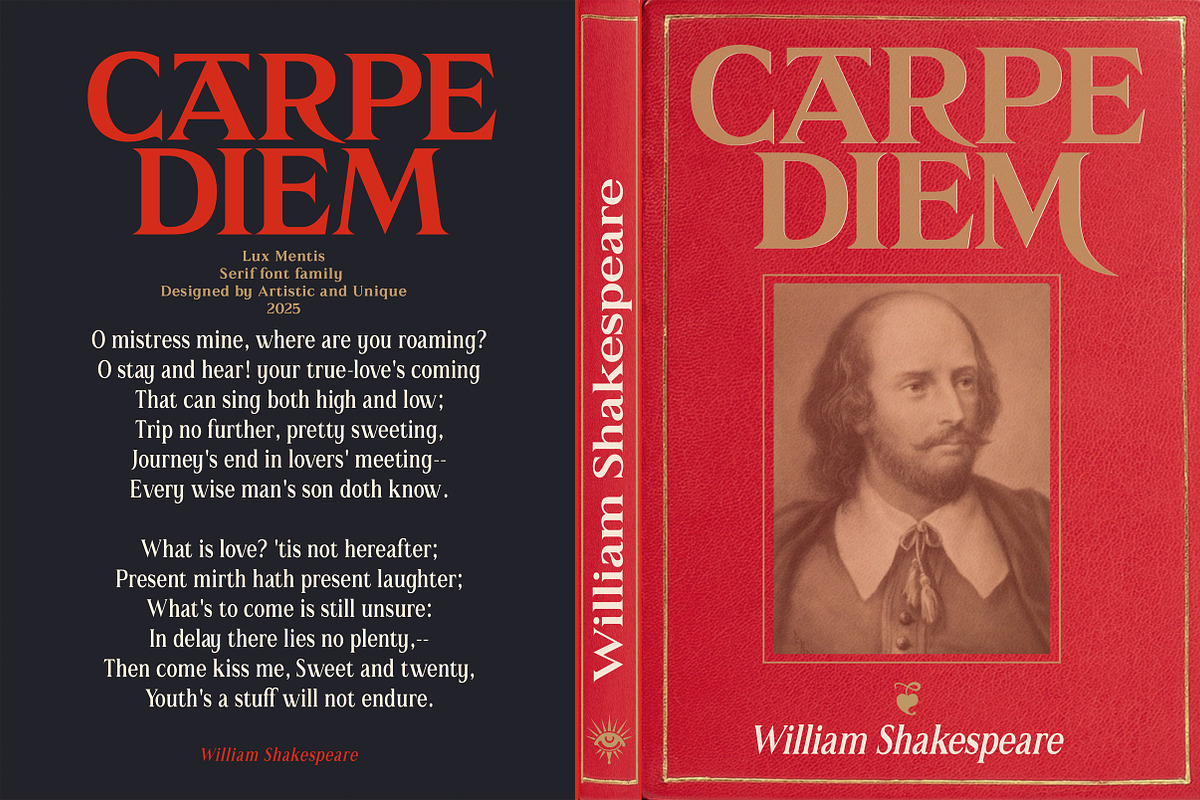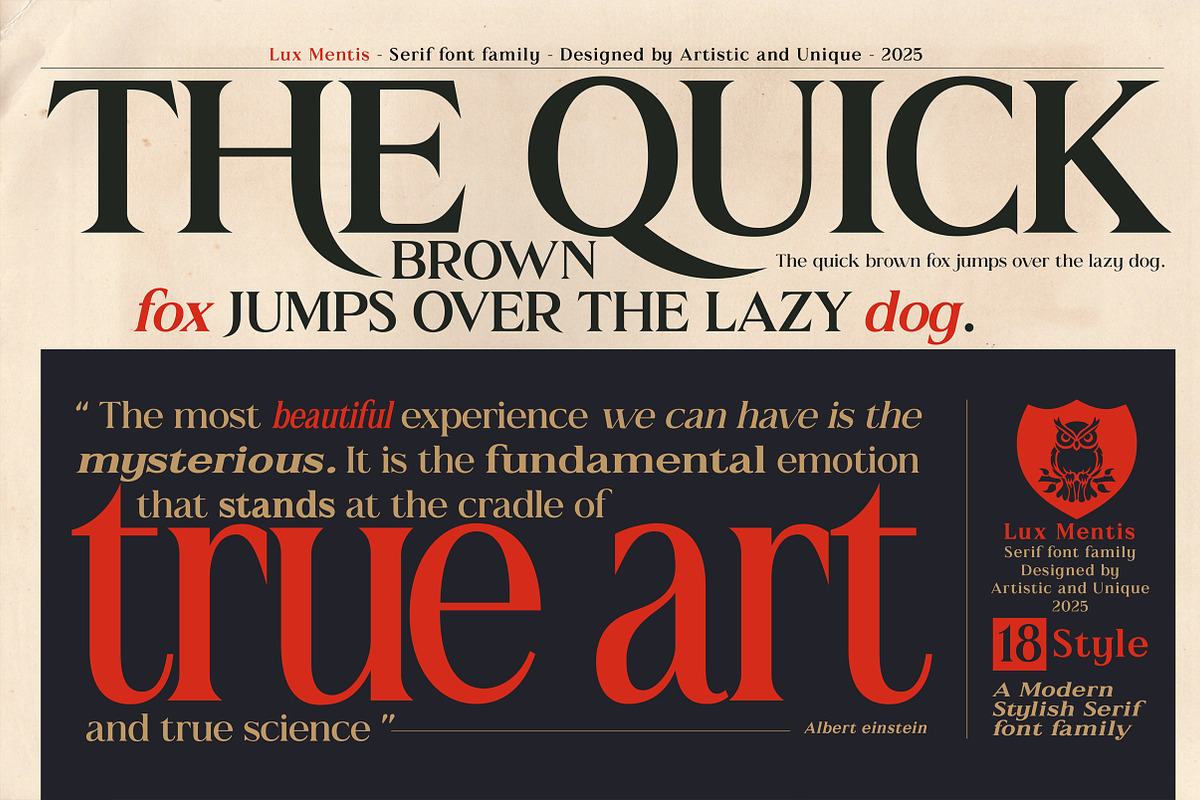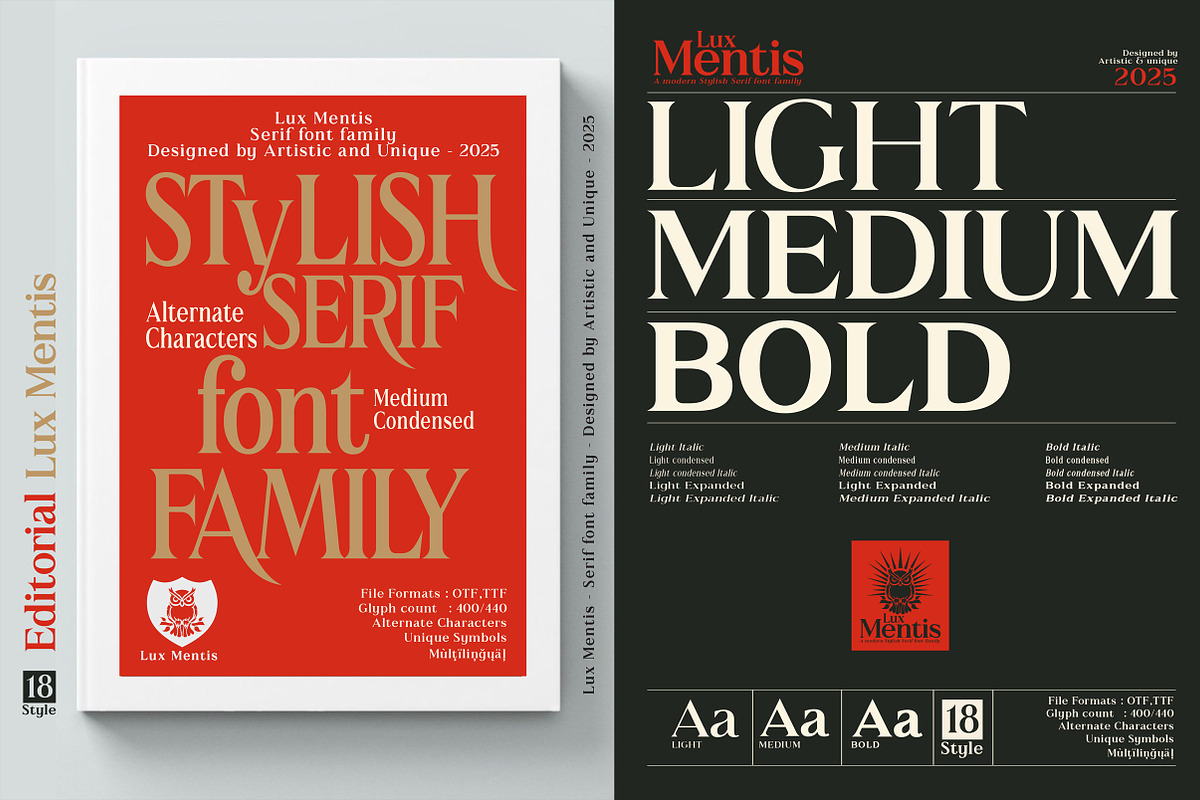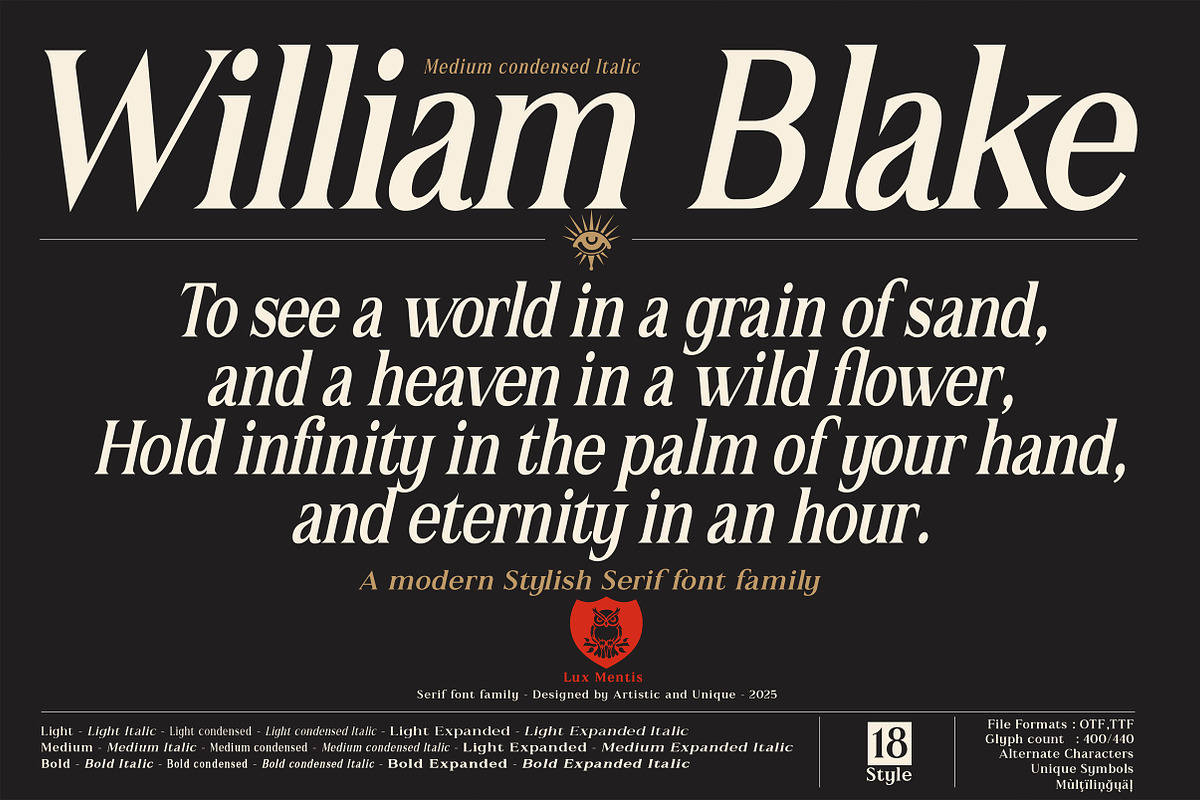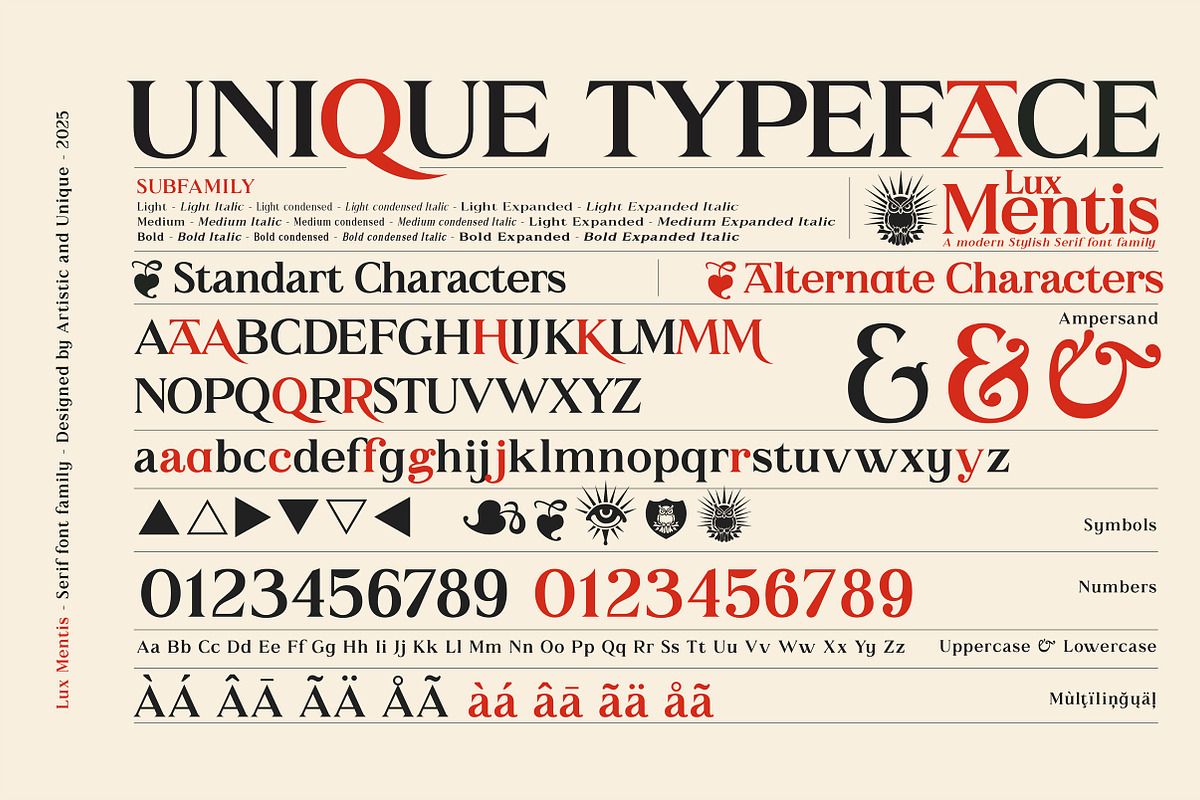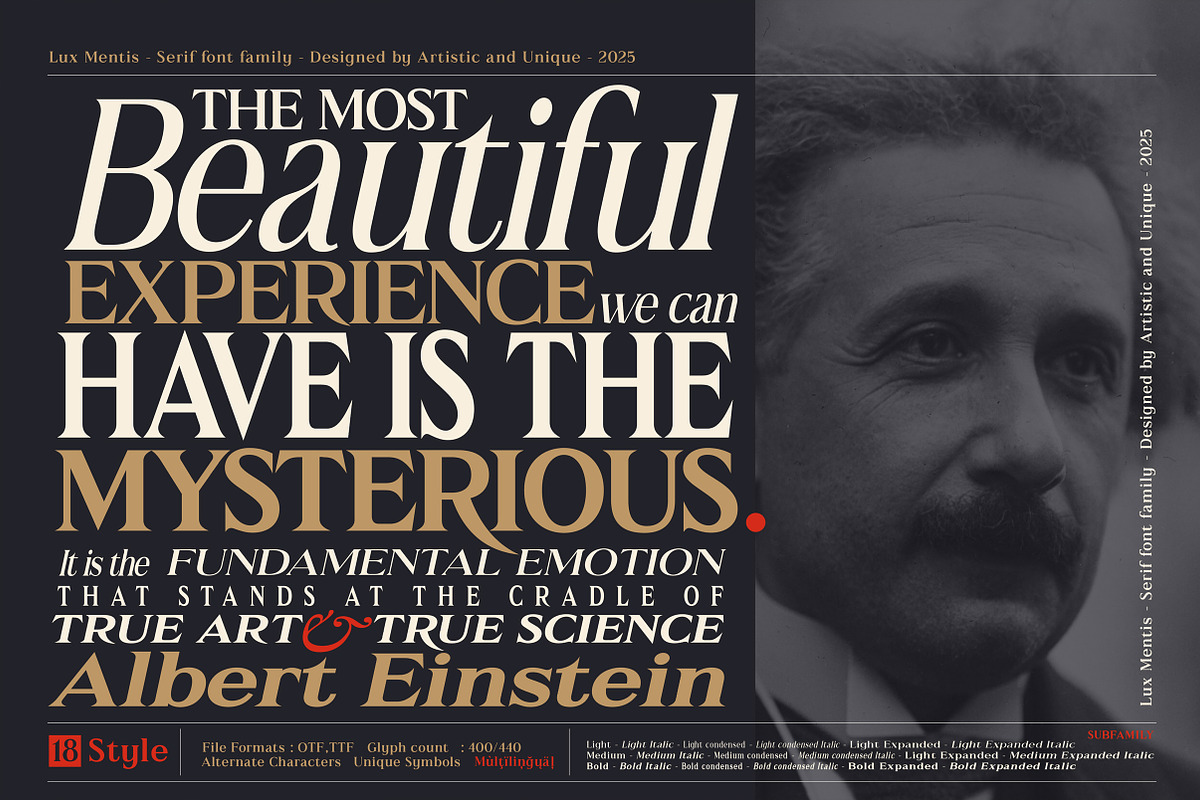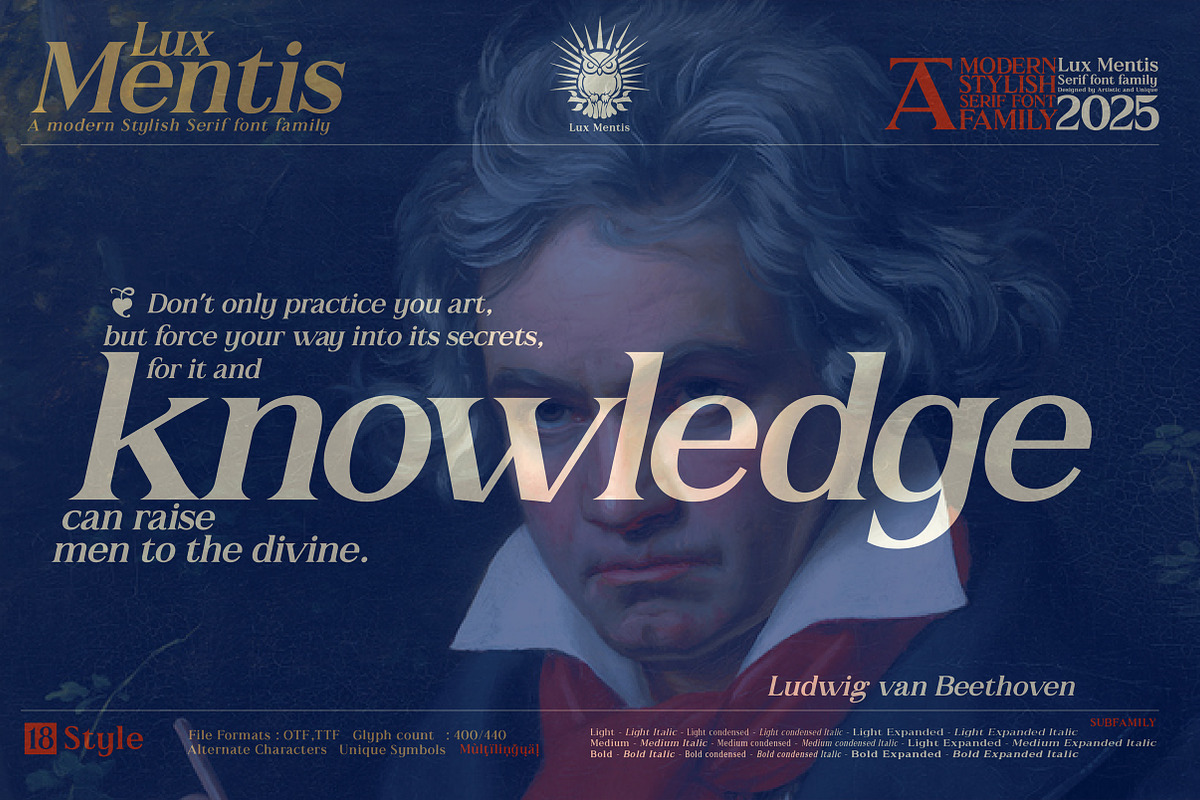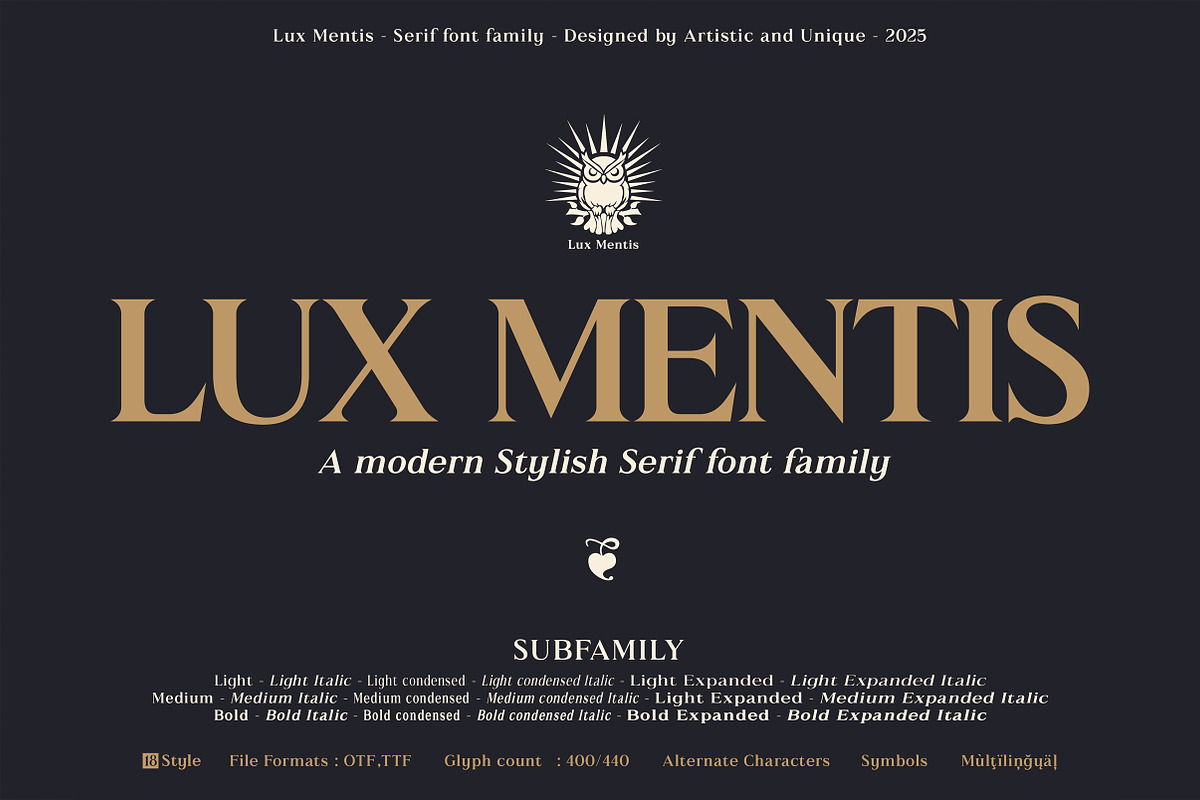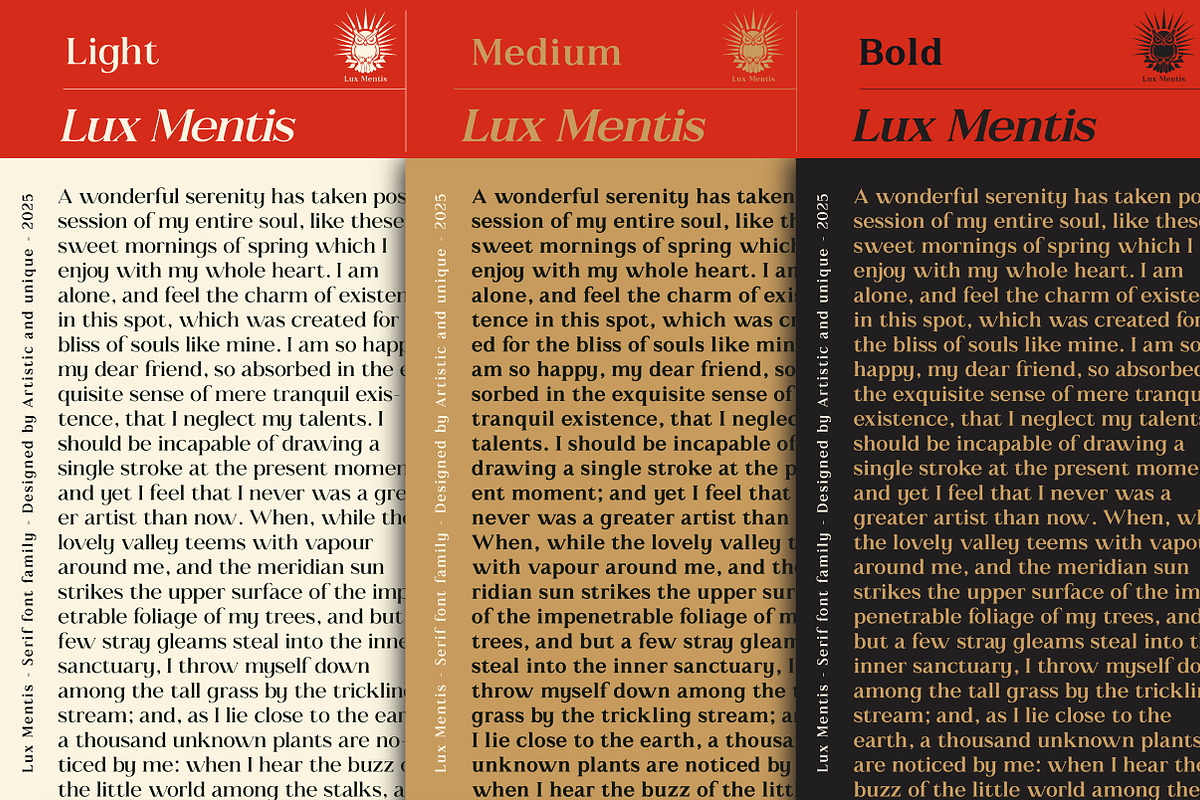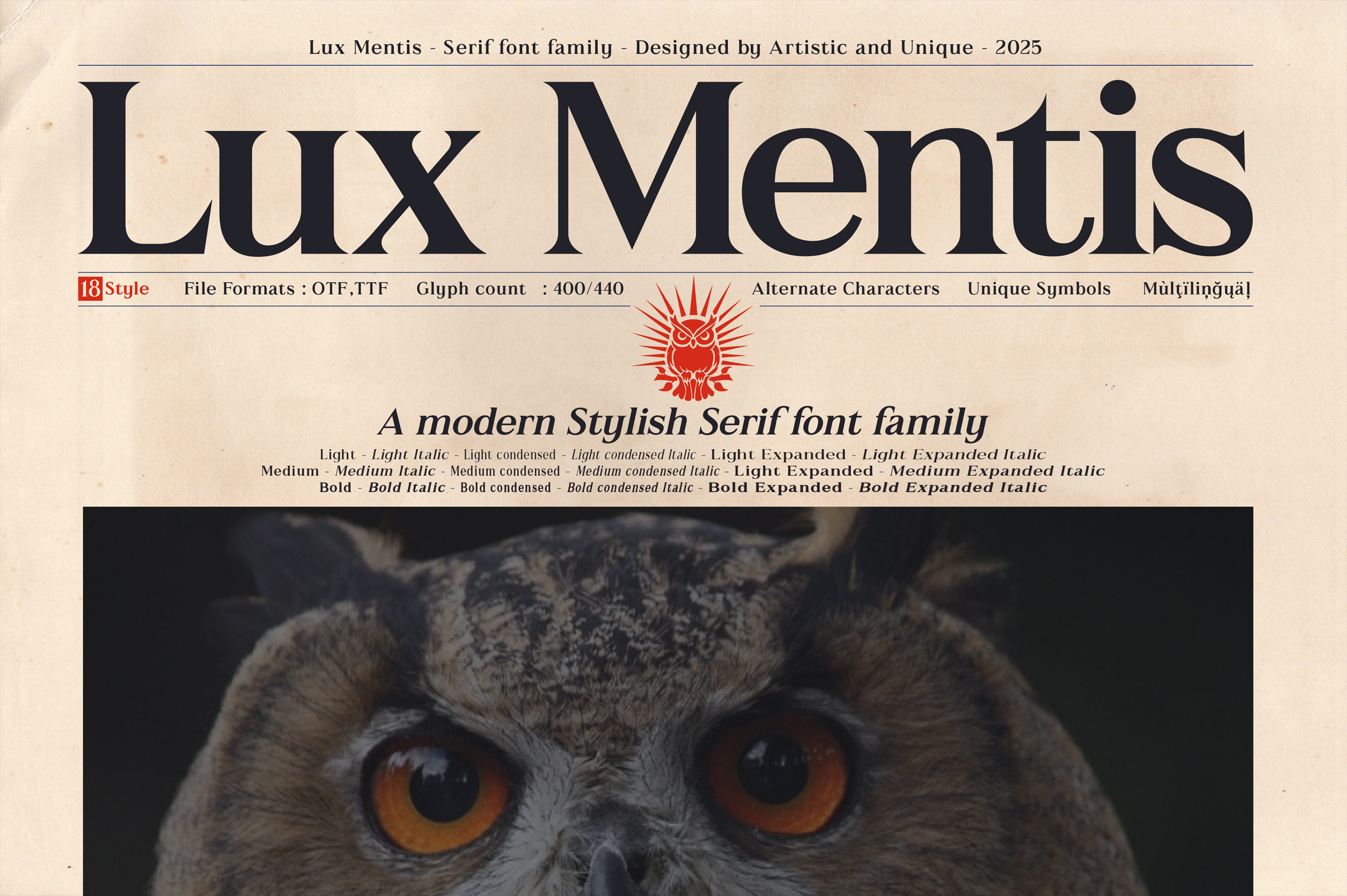
Lux Mentis - Serif Font Family
Lux Mentis - Serif Font Family - 18 Styles - Multilingual Support.
Lux Mentis is a classic serif font enriched with modern nuances. This elegant font is designed to enhance modern design projects with its rich glyph options and striking, alternative characters. Lux Mentis's sharp corners provide flexibility with varying contrast levels while also adding a sophisticated look; it's perfect for both ornate headlines and elegant body text.
In editorial design, it offers high readability with an impactful look for both print and digital publications. It captures a nostalgic look while expanding the range of contemporary designs.
Strengthen your brand identity with a striking look and capture the right atmosphere in your logo design.
- Multilingual support,
- 6 different styles,
- Style alternatives,
- Rich glyph options (440),
- Perfect for branding and editorial design,
- Suitable for web and logo design,
- Alternative characters and additional symbols.
Ideal for branding, luxury packaging, and editorial design, Lux Mentis offers stylish and decorative possibilities with its rich array of alternative characters. Its versatile and robust structure creates a powerful impact and is perfectly suited to a wide range of projects that suit the font's character.